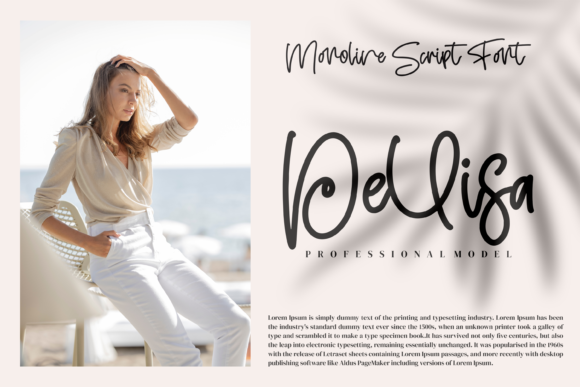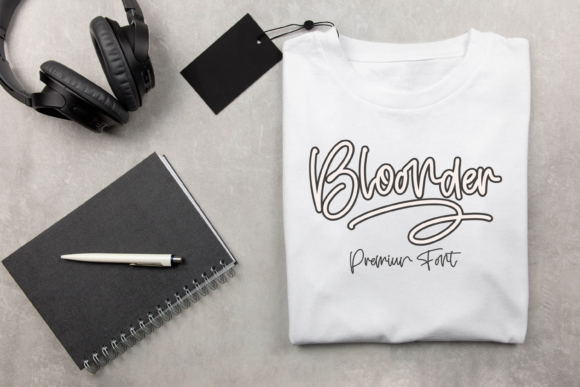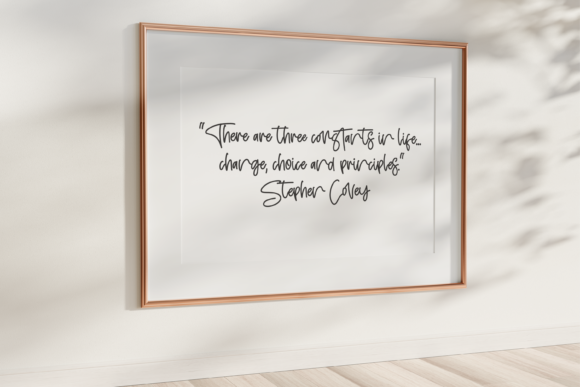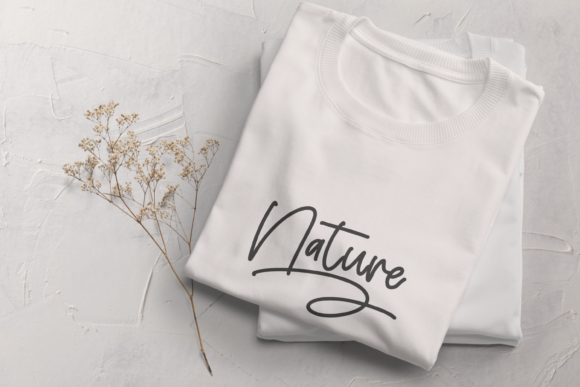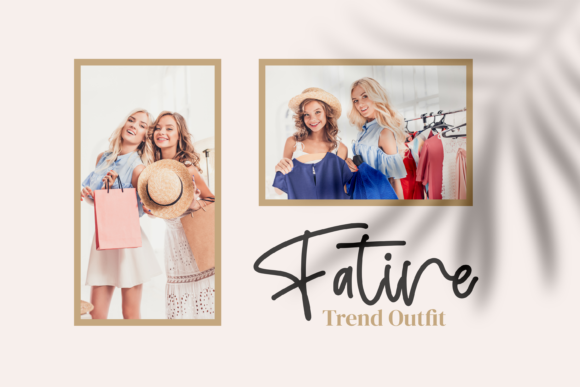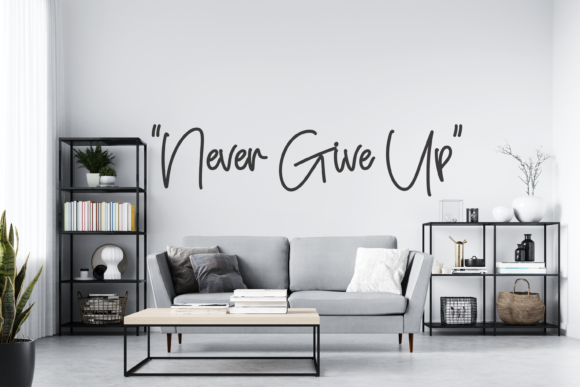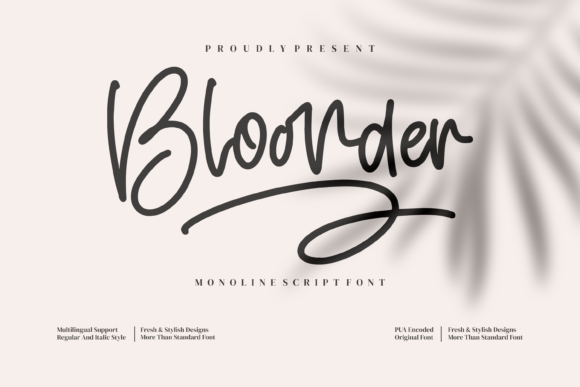
Bloonder Font: Elevate Your Designs with Elegance and Style
In the world of typography, fonts play a crucial role in conveying the tone and aesthetic of a design. For those seeking a stylish and elegant script font, Bloonder is an exceptional choice. This ravishing font is perfect for creating stunning wedding invitations, beautiful stationery art, eye-catching social media posts, and much more. In this article, we’ll dive into the world of Bloonder Font, exploring its features, uses, and benefits for designers and crafters.
What is Bloonder Font?
Bloonder is a sophisticated script font that exudes elegance and refinement. Its flowing curves and intricate details make it an ideal choice for designs that require a touch of luxury and sophistication. Whether you’re creating wedding invitations, branding materials, or social media graphics, Bloonder Font is sure to make a lasting impression.
Key Features of Bloonder Font
- Elegant Script Style: Bloonder Font boasts a beautiful script style that adds a touch of elegance to any design.
- Highly Readable: Despite its ornate details, Bloonder Font remains highly readable, making it perfect for body text and headings.
- Versatile: Bloonder Font can be used for a wide range of design projects, from wedding invitations to social media graphics.
Uses of Bloonder Font
Bloonder Font is an incredibly versatile font that can be used for various design projects. Here are some ideas to get you started:
- Wedding Invitations: Create stunning wedding invitations that set the tone for a luxurious and elegant celebration.
- Stationery Art: Design beautiful stationery art, including letterheads, greeting cards, and journals.
- Social Media Graphics: Elevate your social media presence with eye-catching graphics that showcase the elegance of Bloonder Font.
- Branding Materials: Use Bloonder Font to create sophisticated branding materials, such as logos, business cards, and brochures.
Benefits of Using Bloonder Font
So, why choose Bloonder Font for your design projects? Here are some benefits that set it apart:
- Unique and Exclusive: Bloonder Font offers a distinctive style that will set your designs apart from the rest.
- Time-Saving: With Bloonder Font, you can create stunning designs in no time, thanks to its ease of use and versatility.
- Professional-Grade: Bloonder Font is perfect for professional designers and crafters who require high-quality fonts for their clients.
Tips for Using Bloonder Font
To get the most out of Bloonder Font, here are some tips to keep in mind:
- Pair with Neutral Colors: Bloonder Font looks stunning when paired with neutral colors, such as white, black, or pastel shades.
- Experiment with Sizes: Play around with different font sizes to create visual interest and hierarchy in your designs.
- Add Decorative Elements: Enhance your designs with decorative elements, such as illustrations or graphics, to complement Bloonder Font.
In conclusion, Bloonder Font is a stylish and elegant script font that can elevate your designs to new heights. Its versatility, readability, and unique style make it an excellent choice for designers and crafters seeking to create stunning wedding invitations, stationery art, social media graphics, and more. With Bloonder Font, you can add a touch of luxury and sophistication to your designs, making it a valuable addition to your font collection.